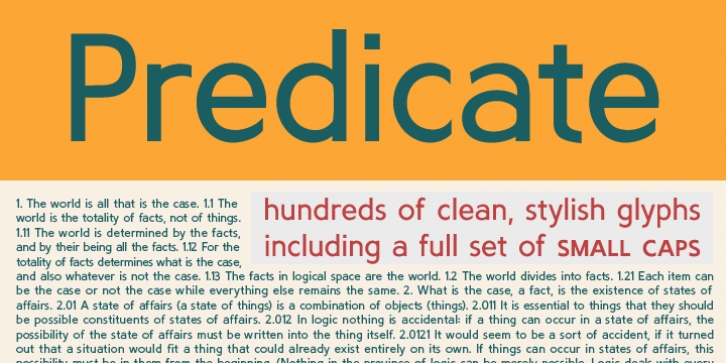
Predicate was designed by Alec Julien and published by Haiku Monkey. Predicate contains 4 styles and family package options.
Predicate is a clean, legible, professional sans-serif that works as a text face, as well as for headlines and signage.
It comes with over 450 glyphs, including a full set of small caps.
· Predicate
· Predicate Italic
· Predicate Bold
· Predicate Bold Italic